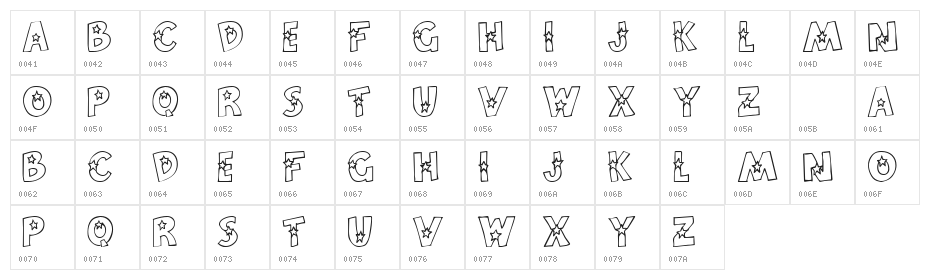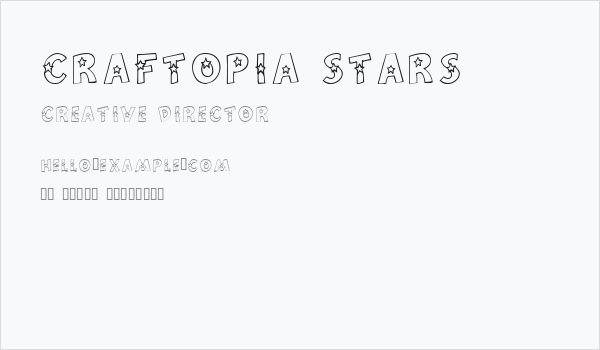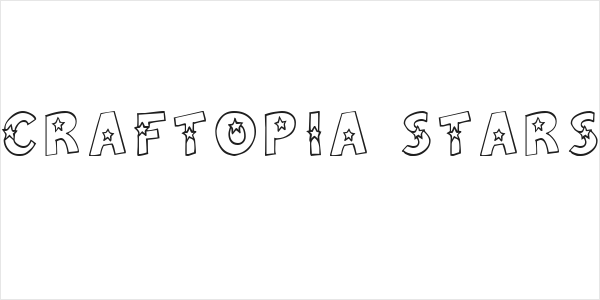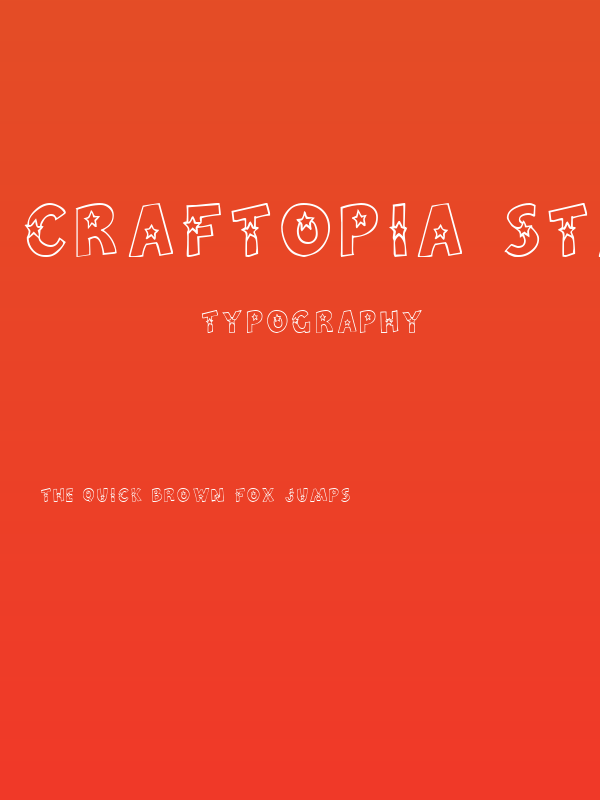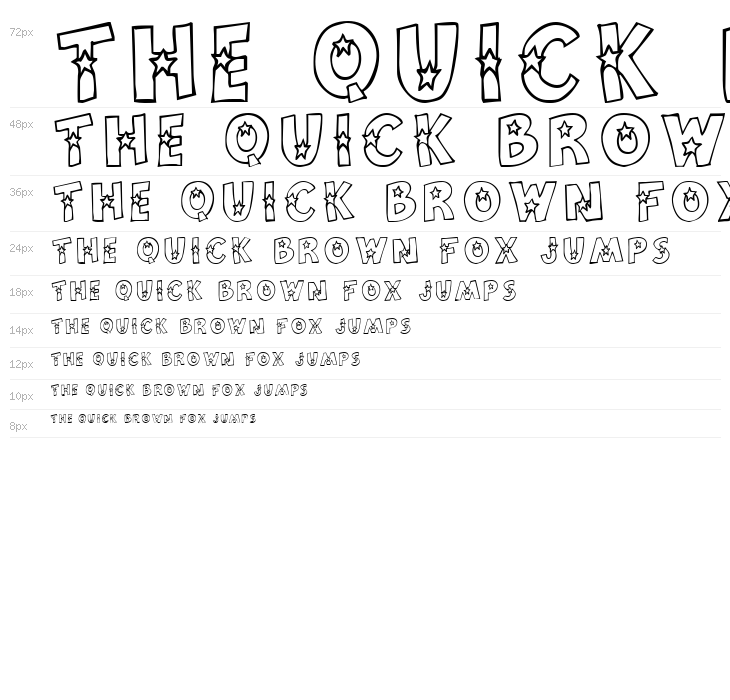
Craftopia Stars Font
Craftopia Stars Description
This playful and whimsical font features bold, uppercase letters adorned with star motifs. Each character is outlined, giving it a distinct and eye-catching appearance. The stars are integrated into the design, adding a fun and dynamic element to the letters. The font's style is reminiscent of a hand-drawn or cartoon-like aesthetic, making it ideal for projects that require a touch of creativity and imagination. Its unique design is perfect for capturing attention and conveying a sense of joy and playfulness.
| Proposed Projects | Ideal for children's book covers, party invitations, playful branding, and creative posters. |